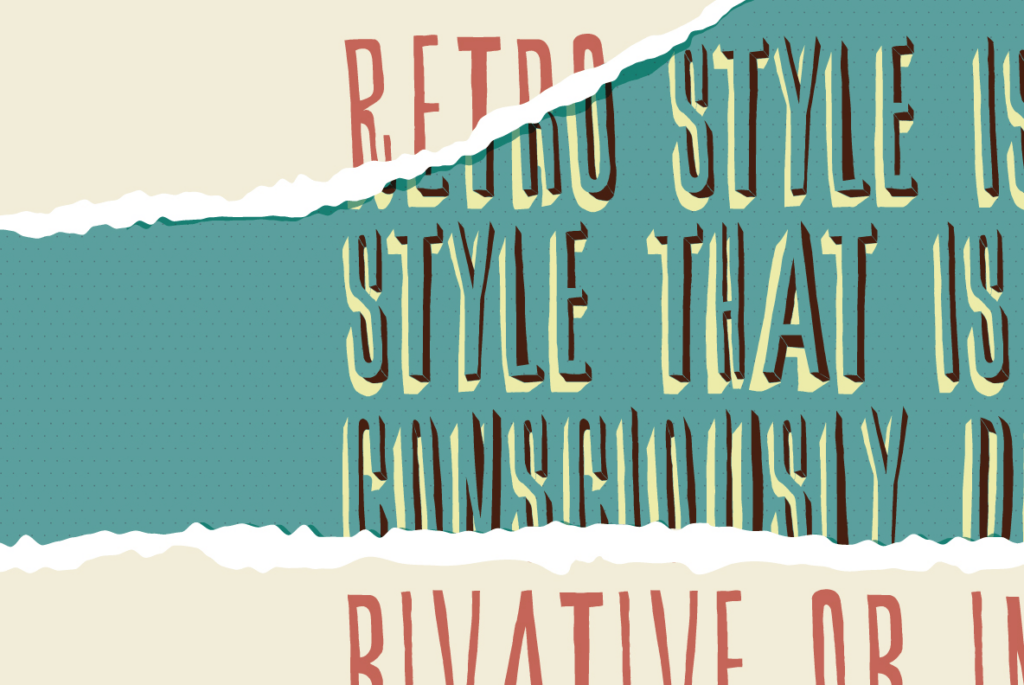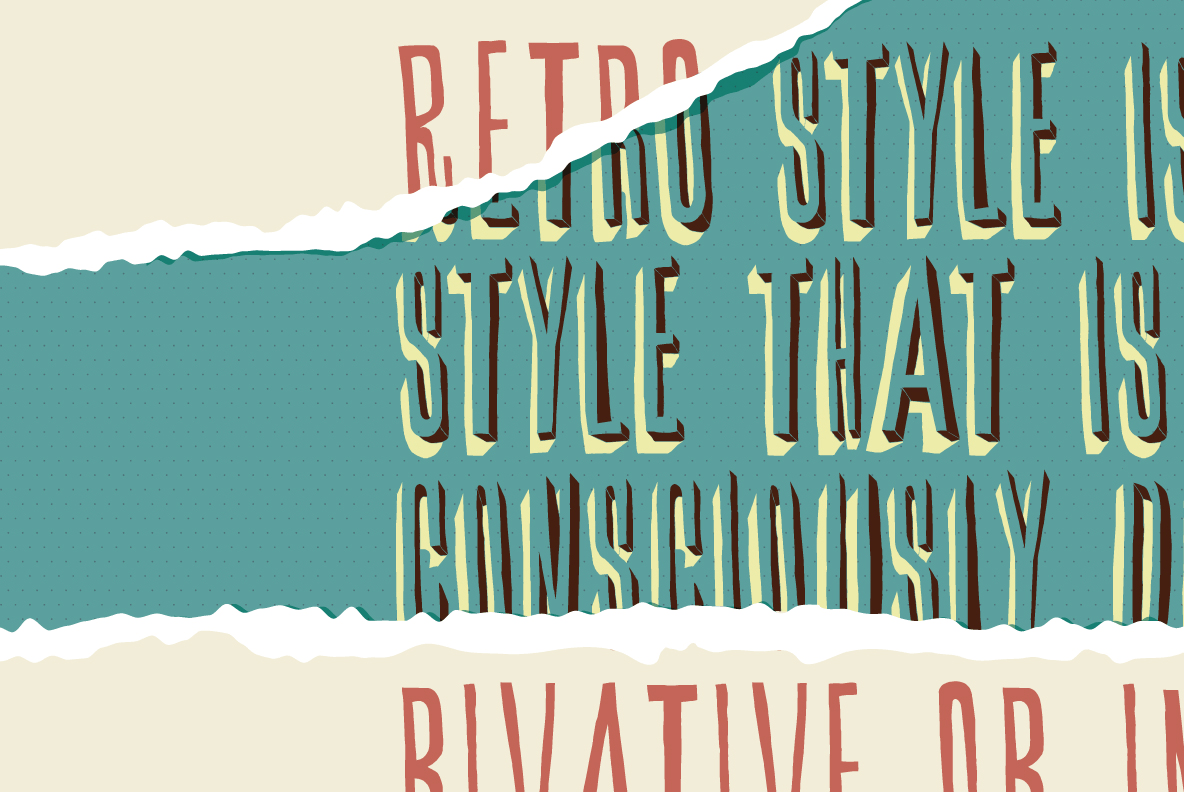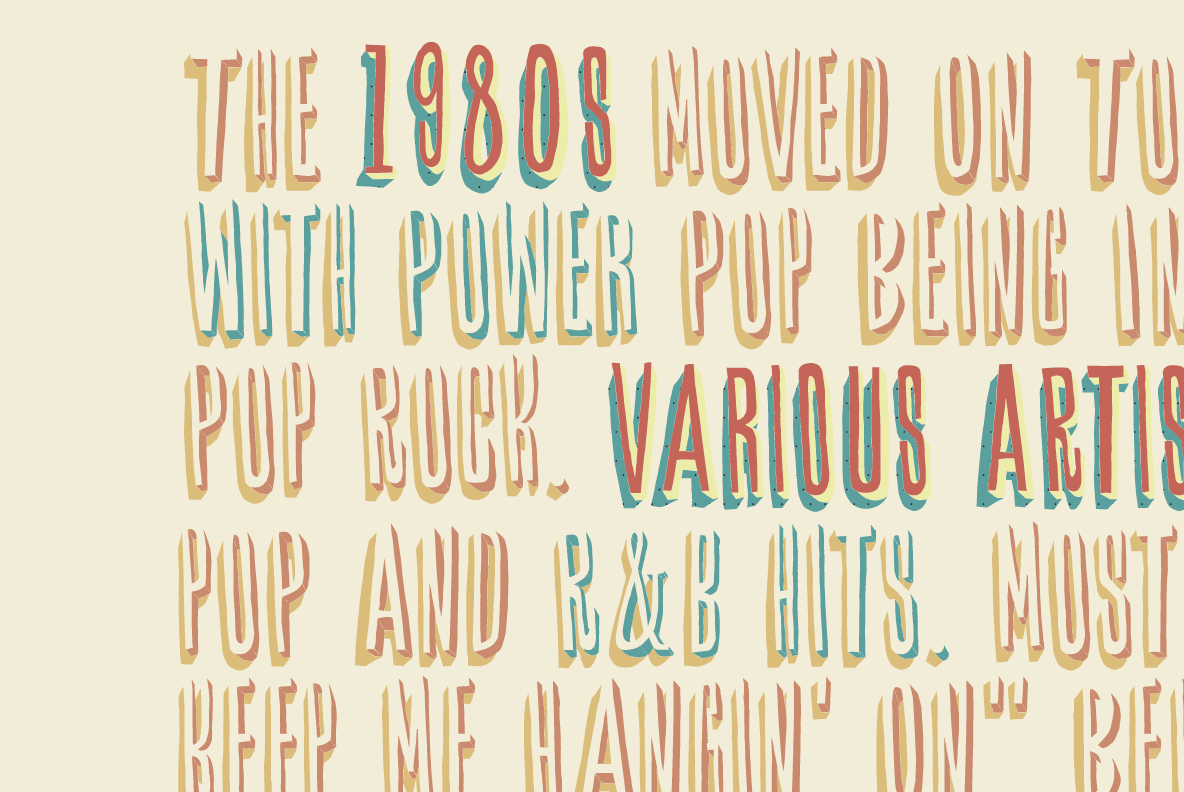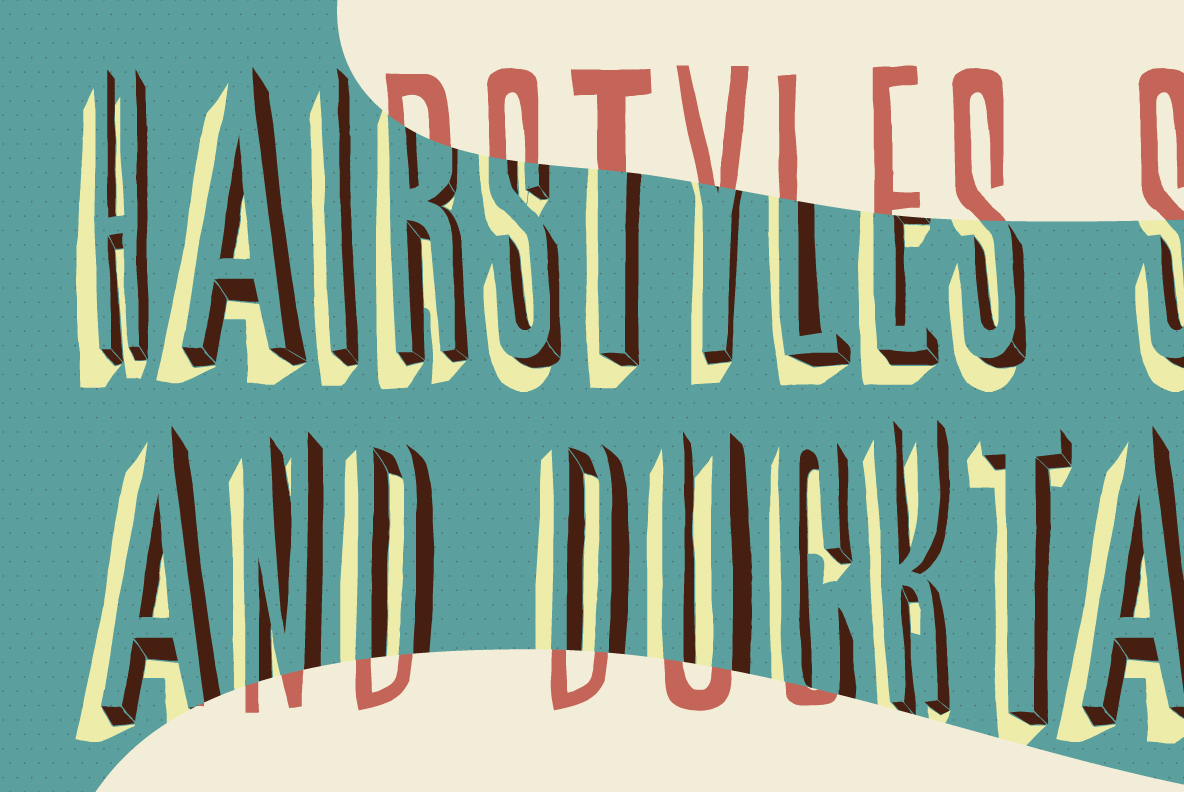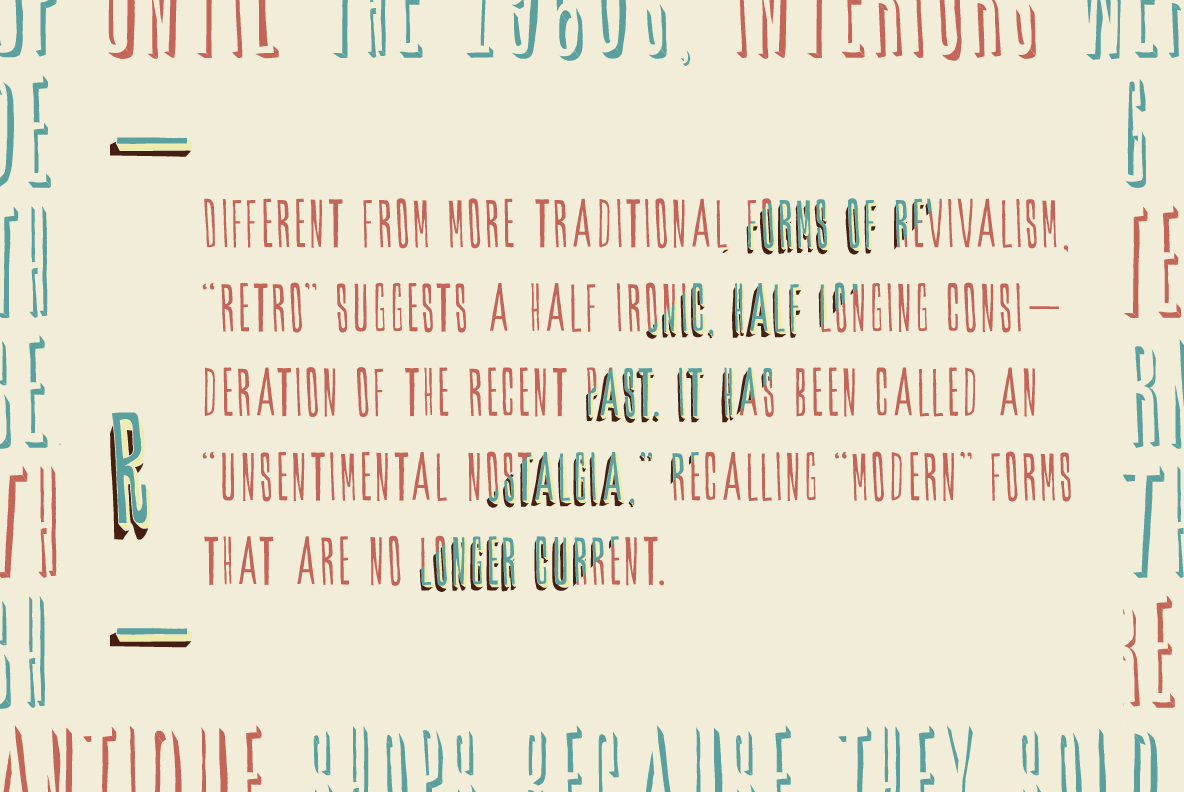
YWFT Shade is an original Jeff Rodgers handset design, now converted into a working system font by the designers at YouWorkForThem. All the inlines, drop shades, and outlines of the original artwork has been preserved with great attention to detail. Fans…